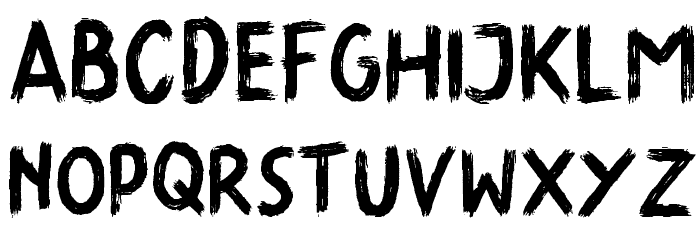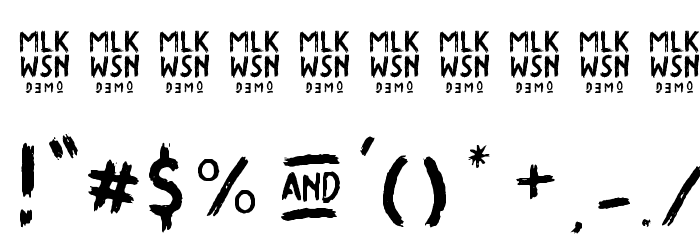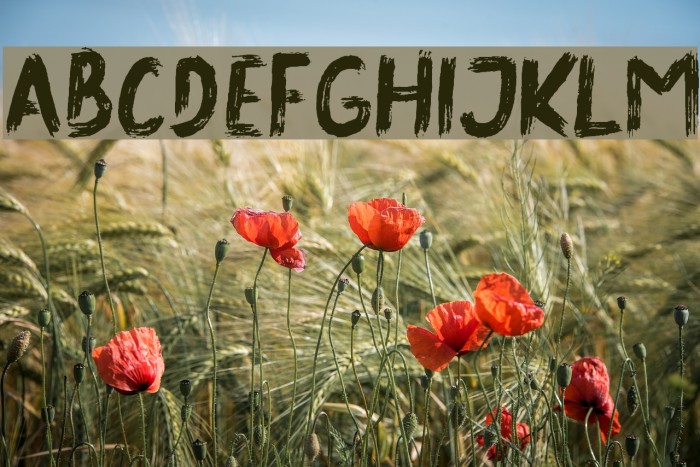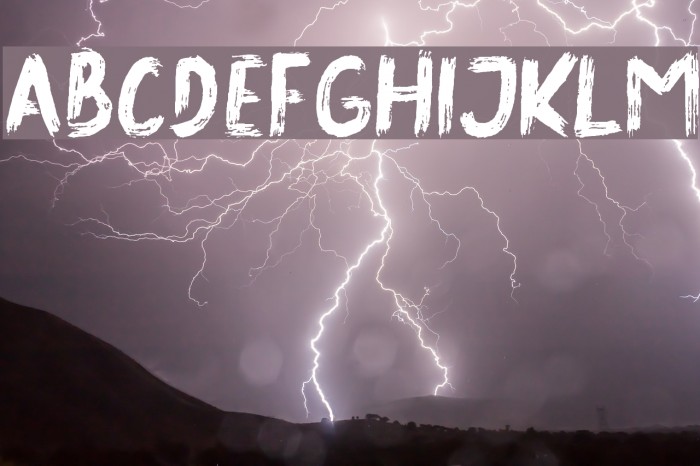
Unknown Secret Bold DEMO Bold Font
This font features a bold, brush-stroke style with a rugged and textured appearance. The characters are uppercase and lowercase, with a consistent thickness that gives a strong and impactful look. The brush-like strokes create a sense of movement and energy, making it ideal for designs that require a dynamic and expressive feel. The font includes a full set of letters, numbers, and a variety of special characters, each maintaining the same bold and textured style. The overall design is both artistic and modern, suitable for projects that aim to stand out with a unique and creative touch.
A bold, brush-stroke font with a rugged and textured appearance.
- Proposed Projects: Ideal for posters, album covers, branding, and any project needing a bold, artistic touch.
- Overall Style: Modern, Artistic